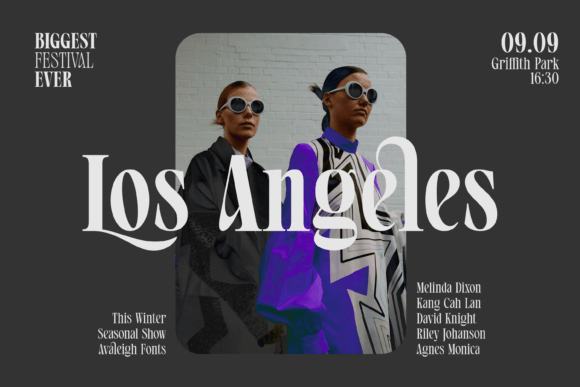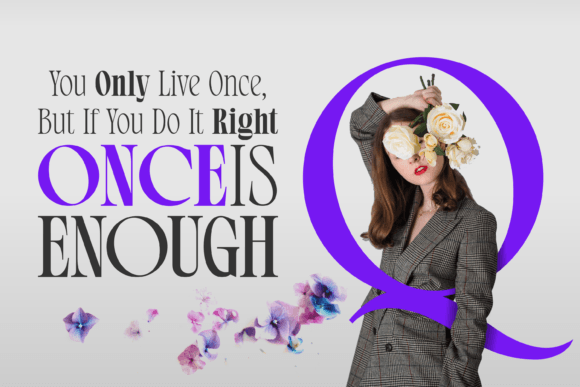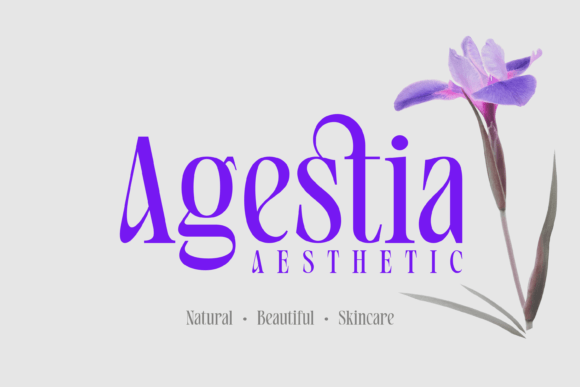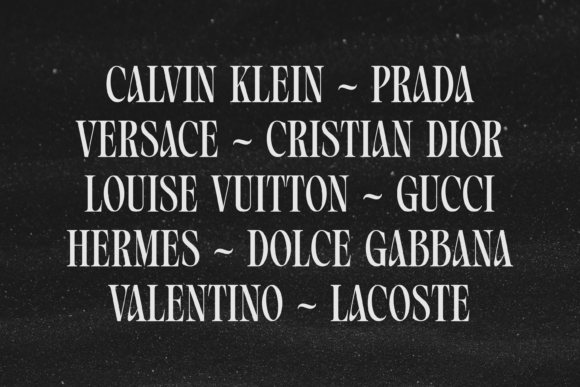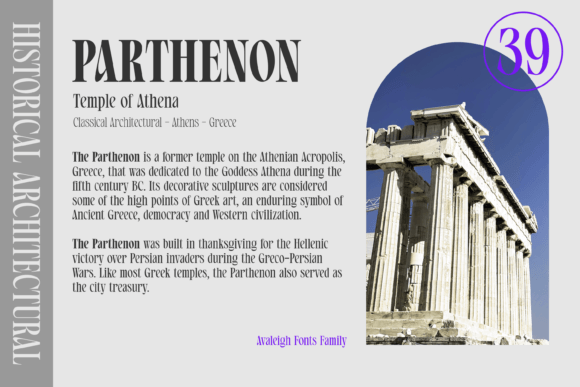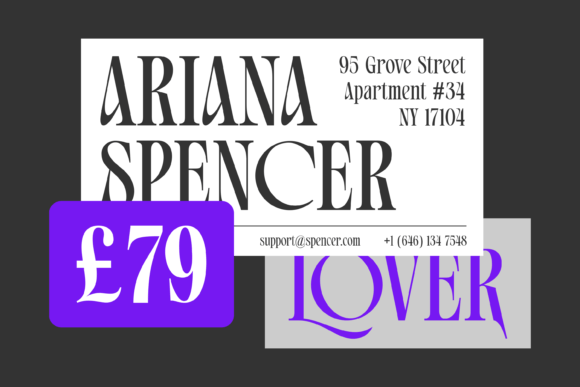
Avaleigh Font: Elevate Your Designs with Elegance and Sophistication
In the world of typography, a font can make or break a design. For designers and crafters looking to add a touch of elegance and sophistication to their projects, Avaleigh Font is an excellent choice. This stylish and elegant serif font is perfect for a variety of applications, from branding and poster displays to logo designs, magazines, headlines, stickers, and more.
What is Avaleigh Font?
Avaleigh Font is a beautifully crafted serif font that exudes refinement and luxury. Its classic design makes it suitable for projects that require a high level of sophistication, such as editorial designs, advertising, and packaging. The font’s elegant lines and curves create a sense of harmony and balance, making it easy to read and visually appealing.
Key Features of Avaleigh Font
- PUA Encoded: Avaleigh Font is PUA (Private Use Area) encoded, which means that you can access all the glyphs and ligatures with ease. This feature makes it simple to use the font’s extended character set, including swashes, alternates, and ornaments.
- Serif Design: The font’s serif design adds a touch of classic elegance to any project. The serifs are carefully crafted to create a sense of movement and fluidity, making the text easy to read.
- Stylish and Elegant: Avaleigh Font is designed to be stylish and elegant, making it perfect for projects that require a high level of sophistication.
- Versatile: The font is versatile and can be used for a wide range of projects, from branding and advertising to editorial designs and packaging.
Use Cases for Avaleigh Font
Avaleigh Font is perfect for a variety of projects, including:
- Branding: Use Avaleigh Font to create a sophisticated brand identity that reflects your company’s values and personality.
- Poster Displays: The font’s elegant design makes it perfect for poster displays, flyers, and brochures.
- Logo Designs: Avaleigh Font can be used to create stunning logos that are both elegant and memorable.
- Magazines: The font’s classic design makes it suitable for magazine layouts, including headlines, subheadings, and body text.
- Headlines: Use Avaleigh Font to create eye-catching headlines that grab attention and add a touch of elegance to your designs.
- Stickers: The font’s stylish design makes it perfect for stickers, labels, and other promotional materials.
Benefits of Using Avaleigh Font
By using Avaleigh Font, designers and crafters can benefit from:
- Elegance and Sophistication: The font’s elegant design adds a touch of sophistication to any project.
- Versatility: Avaleigh Font can be used for a wide range of projects, making it a valuable addition to any design library.
- Easy to Use: The font’s PUA encoding makes it easy to access all the glyphs and ligatures, even for designers who are new to using extended character sets.
- High Readability: The font’s classic design and elegant lines make it easy to read, even at small sizes.
Avaleigh Font is a stylish and elegant serif font that is perfect for designers and crafters looking to add a touch of sophistication to their projects. With its PUA encoding, elegant design, and versatility, this font is an excellent choice for a wide range of applications. Whether you’re working on a branding project, creating a poster display, or designing a logo, Avaleigh Font is sure to elevate your designs and leave a lasting impression.